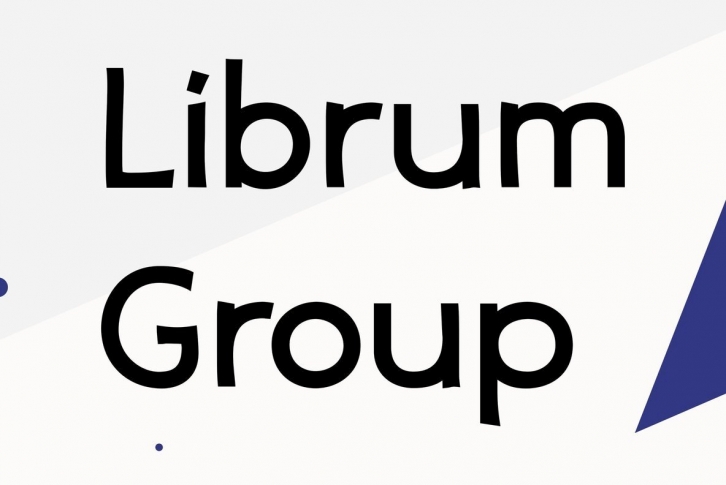
Librum is a 4-font text family specifically constructed for its use in book design. Its wider letter spacing works best in body copy sizes from 8-point to 15-point. It is slightly condensed and has several graphics in various rarely used ascii slots. Plus, there are several OpenType features like: oldstyle figures, discretionary ligatures, fractions, small caps [with small cap figures], and several graphics.
Librum E is a 5-font text family specifically constructed for its use in ePUB design. It has the same spacing as Librum, but it only has the 256 ascii slots. It has only oldstyle figures. Librum E Sm Caps has lining figures and small cap figures. It is slightly condensed and has several graphics in various rarely used ascii slots.
Bream is a 2-font Display family specifically constructed for its use in book design. Its tighter letter spacing works best at 18-point and larger. It is slightly condensed and has several graphics in various rarely used ascii slots. It Has the same characters and features as Librum.
Librum Sans is a 4-font family specifically constructed for its use in book design. Its vertical metrics are identical to Librum, Bream, and Librum E. So, it works well for run-in heads, nested styles, and so forth. The character sets and OpenType features are identical to Librum and Bream.